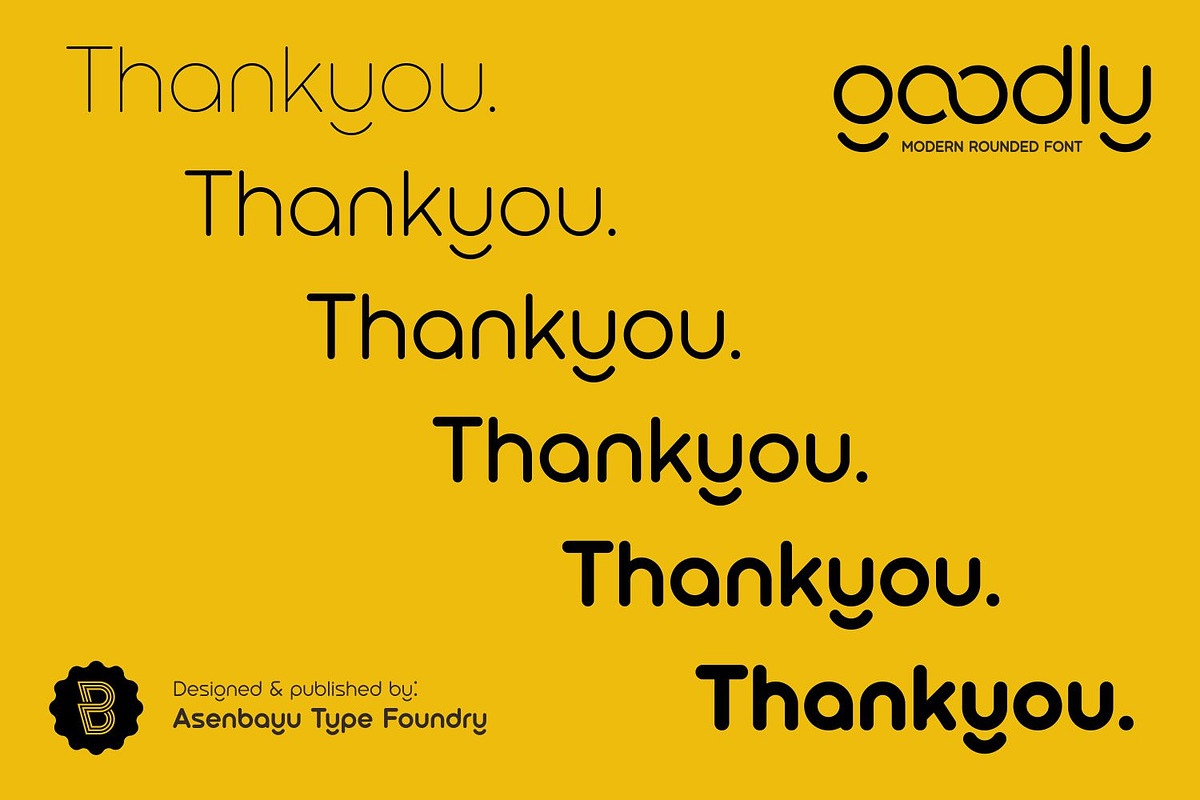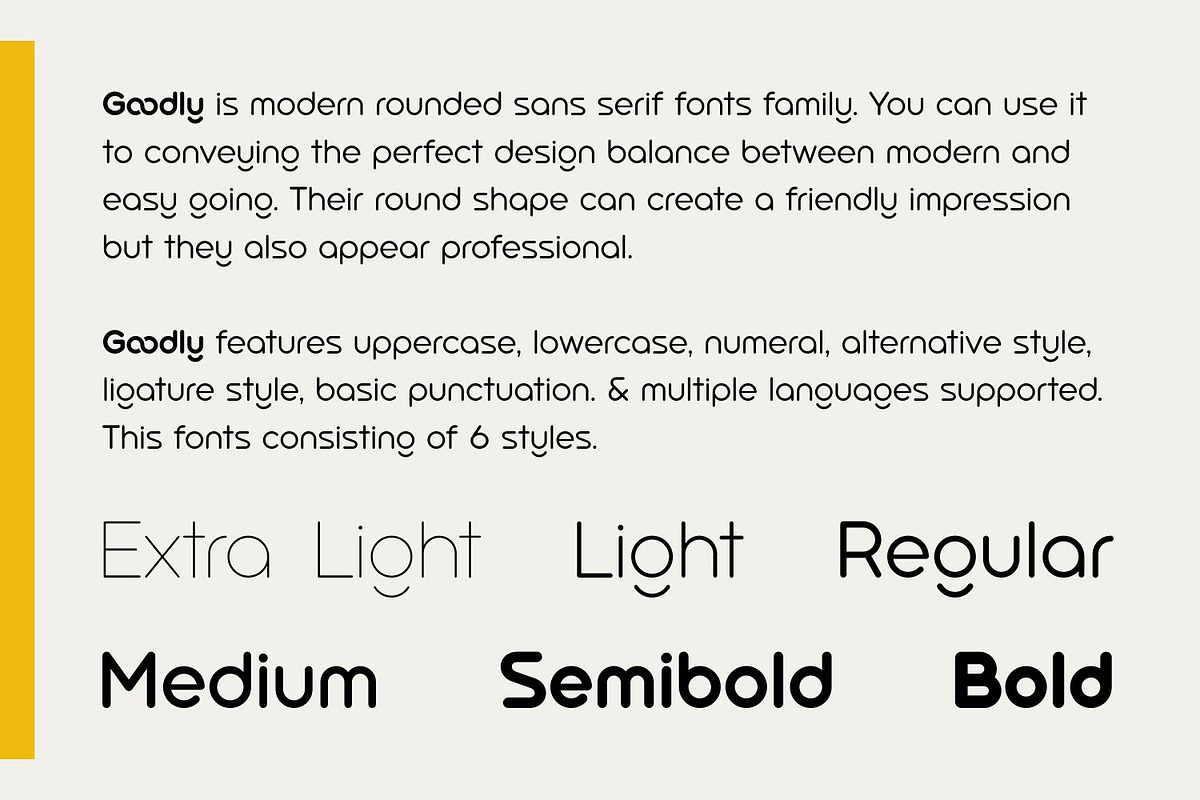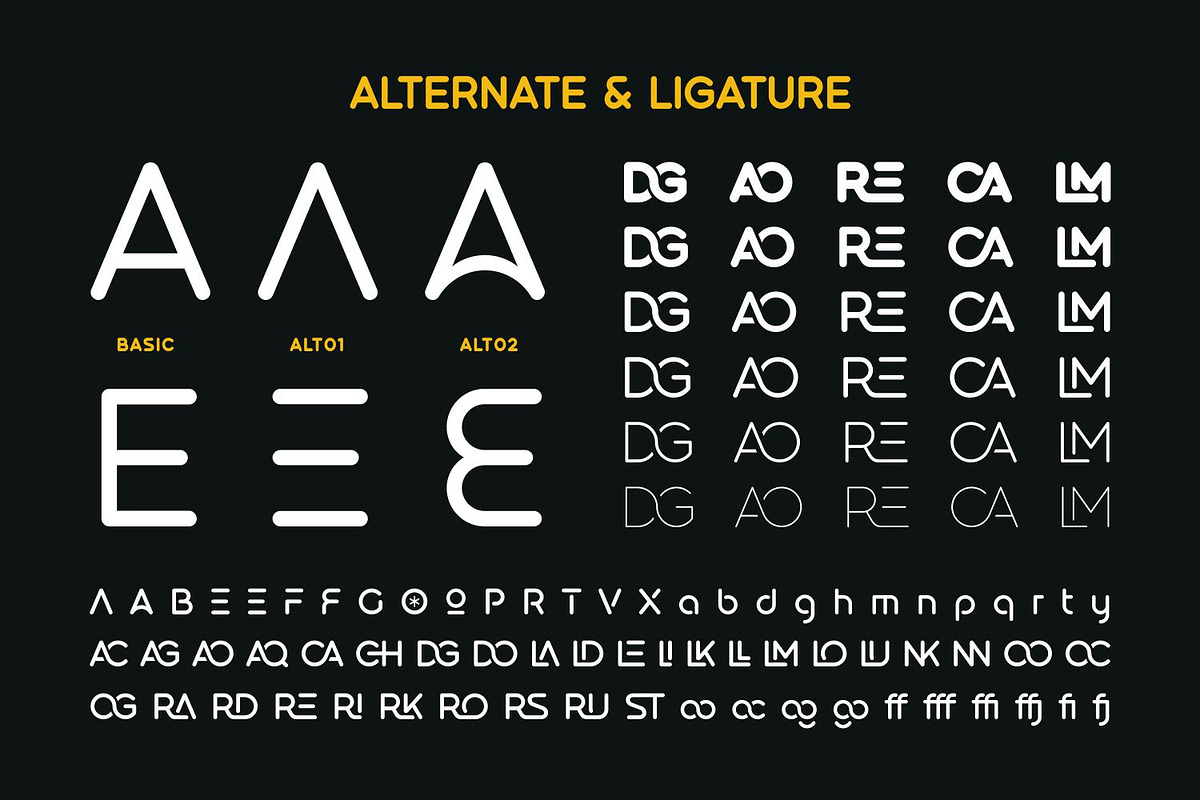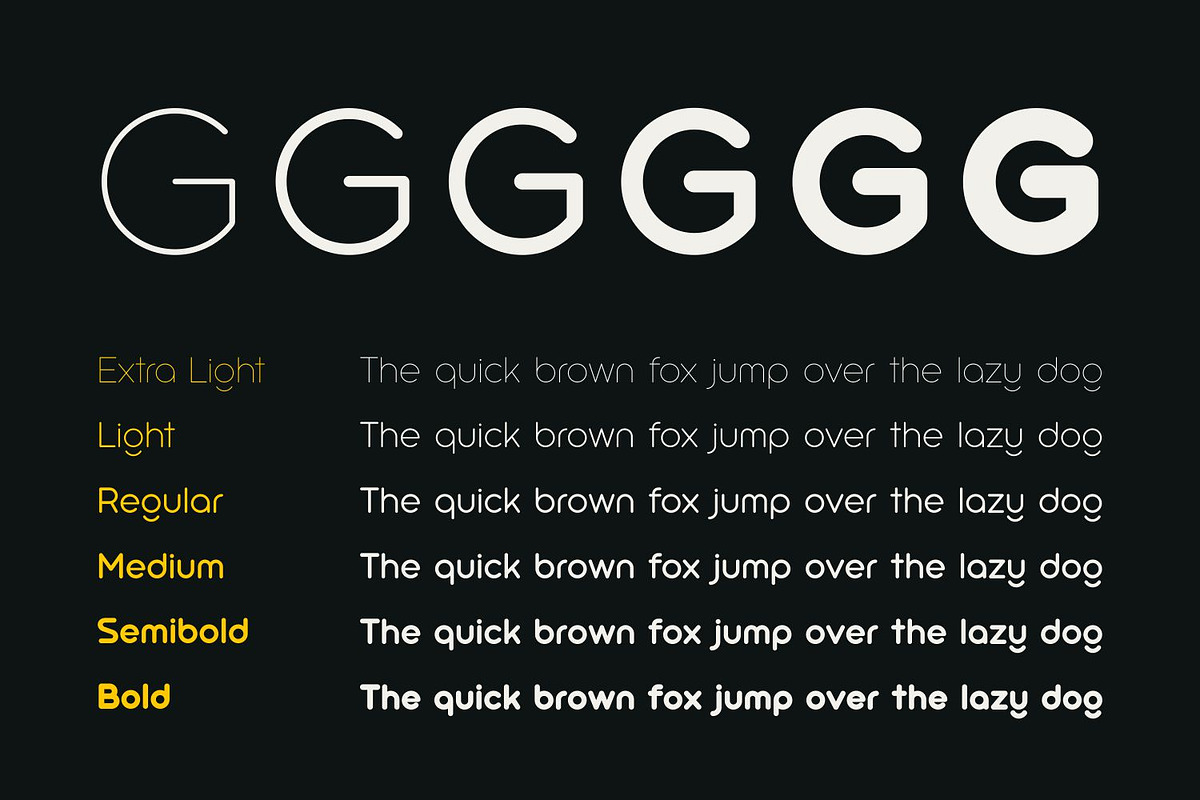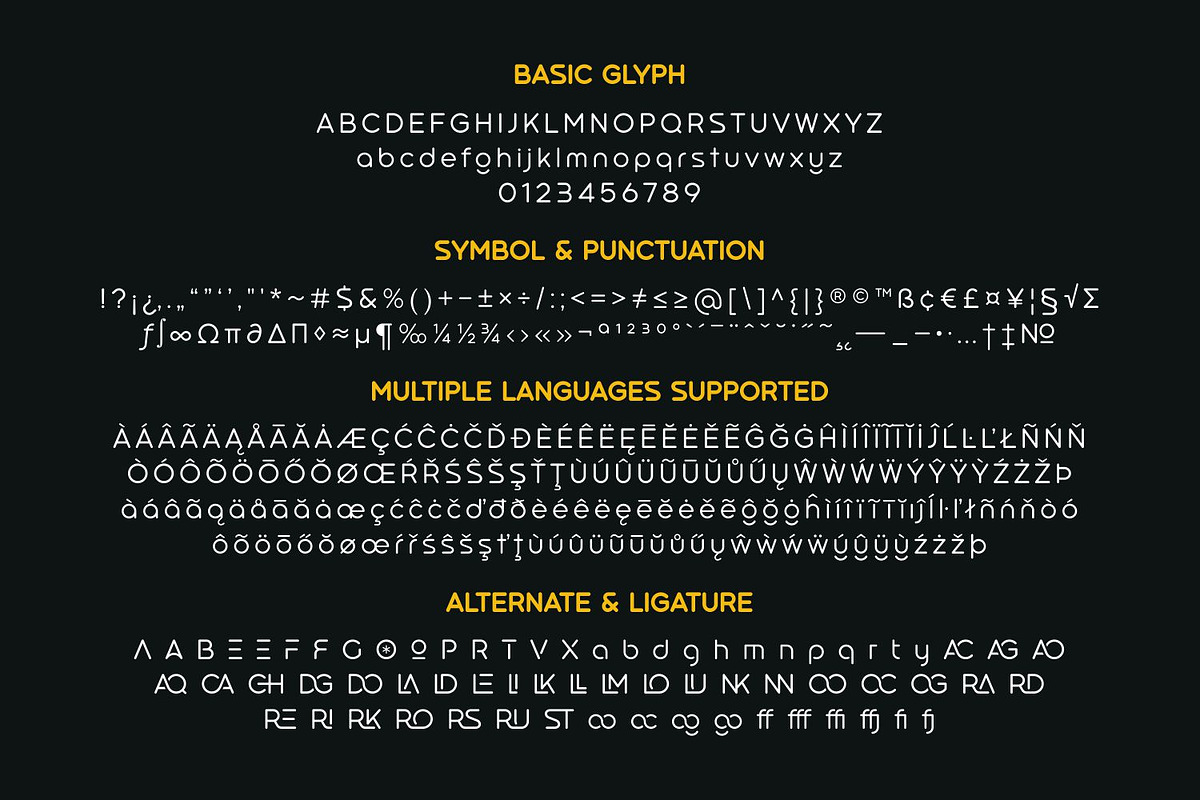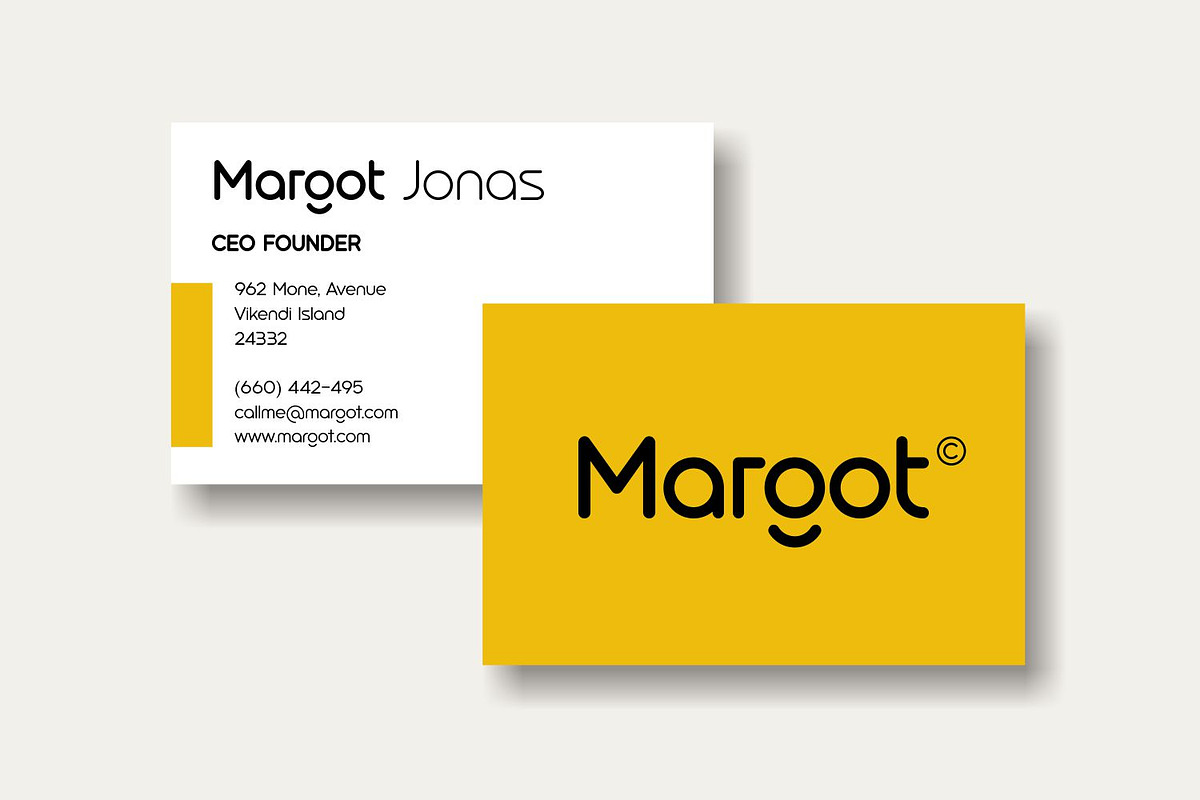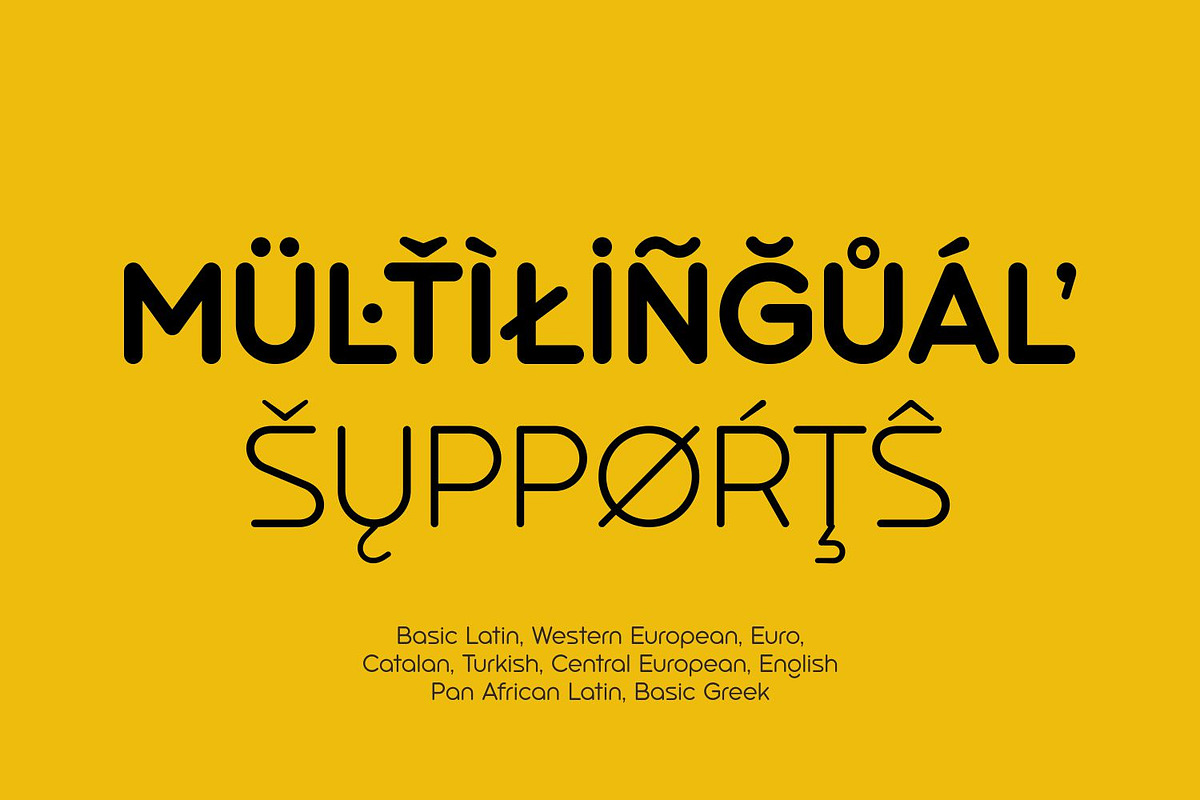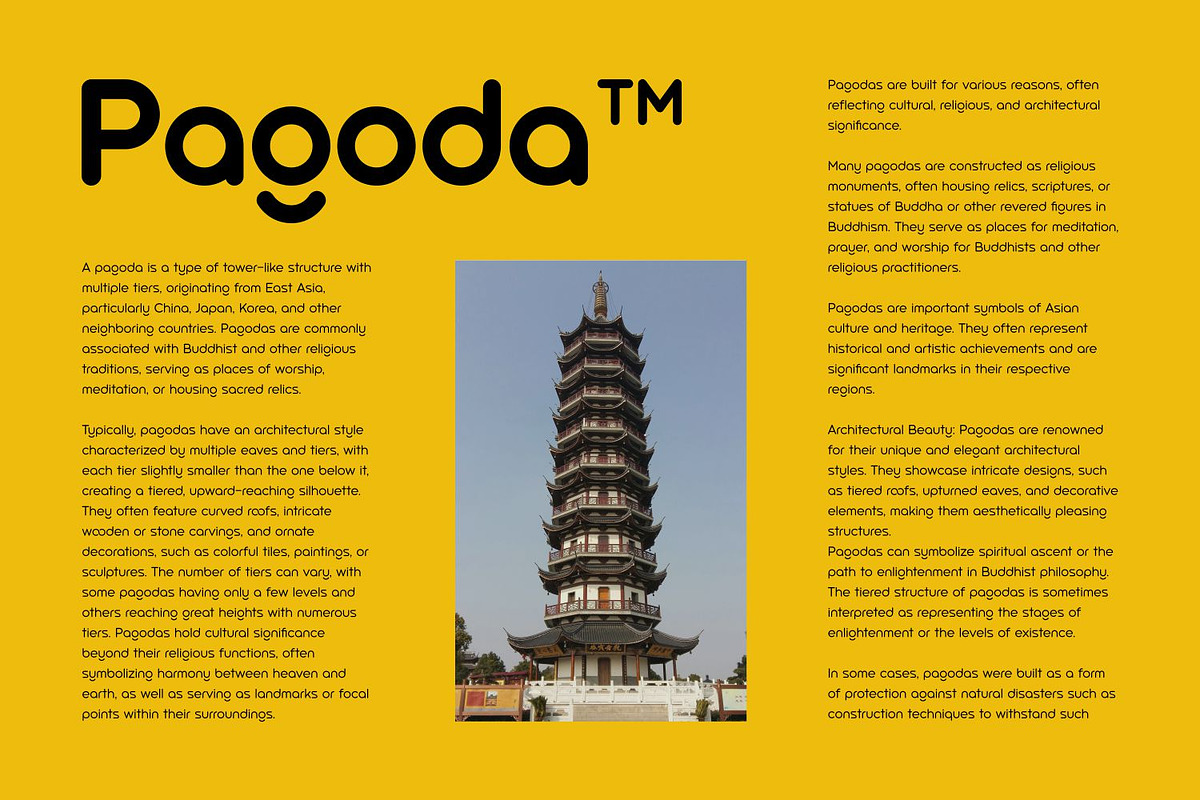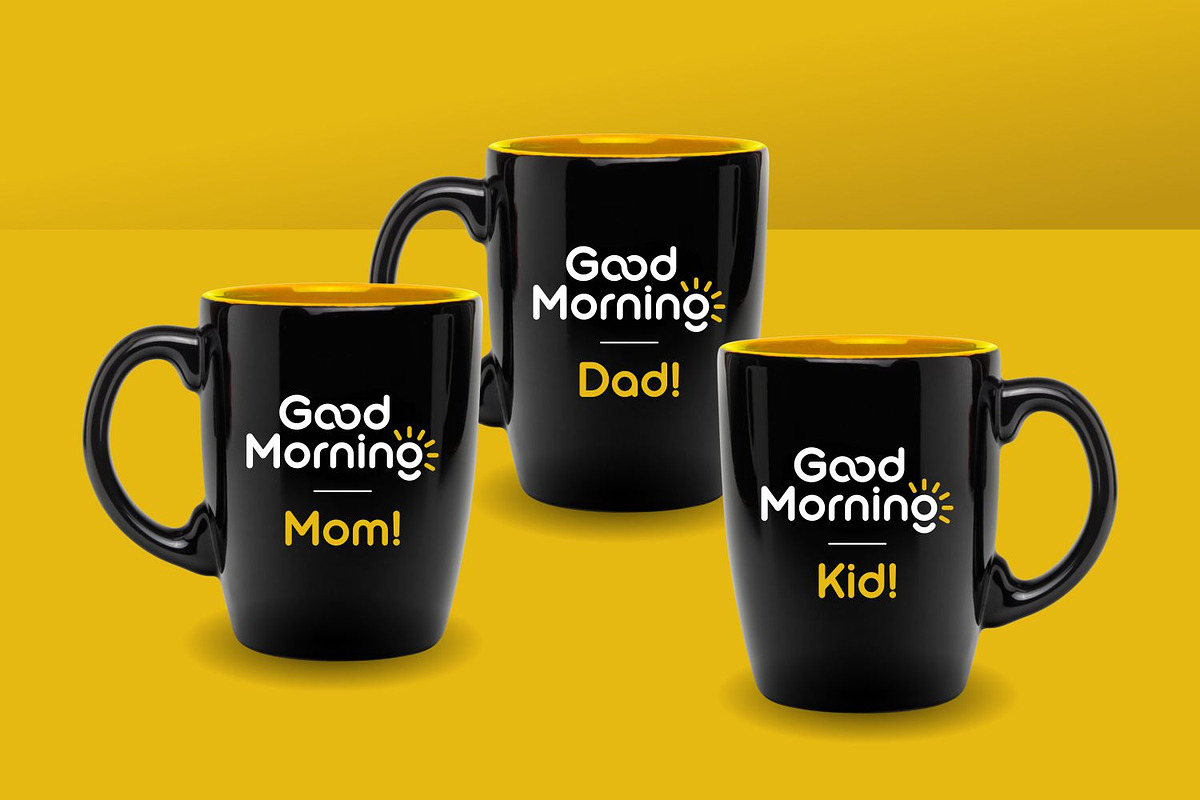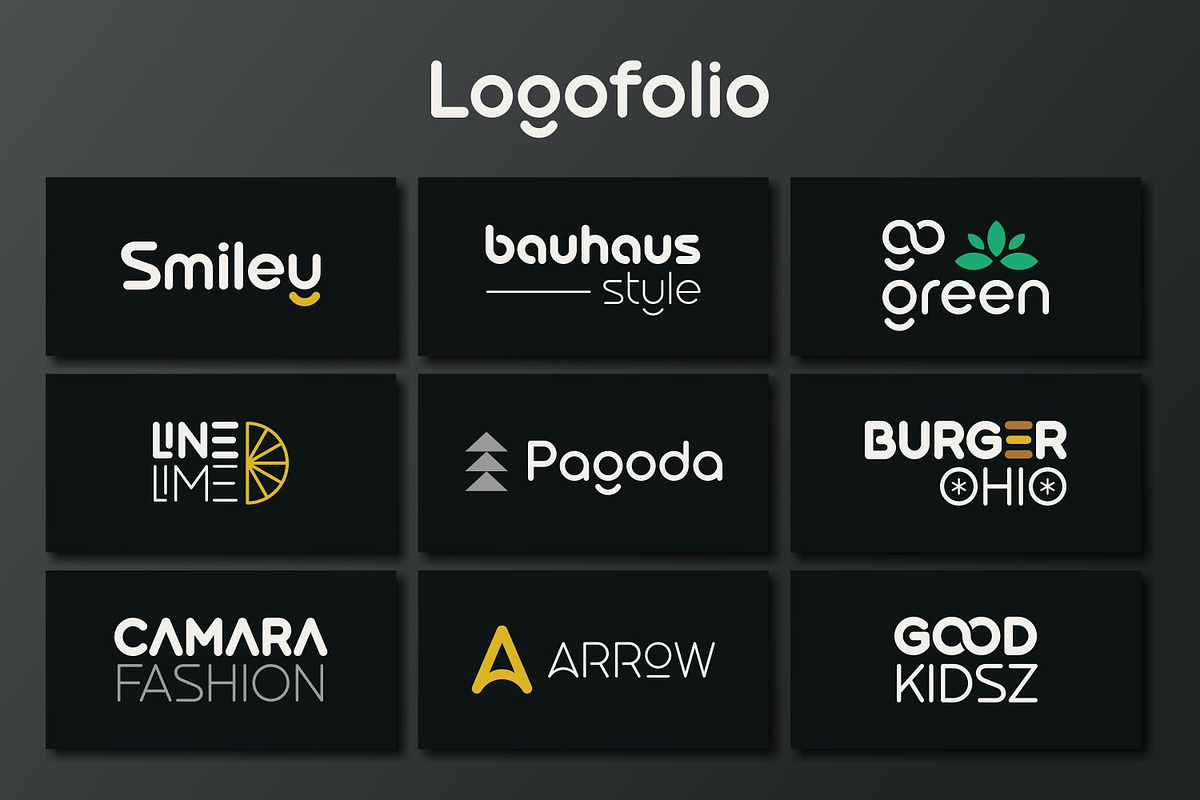
Goodly Fonts Family
Goodly is modern rounded sans serif fonts family consisting of 6 weight. You can use it to conveying the perfect design balance between modern and easy going. Their round shape can create a friendly impression but they also appear professional. This font is suitable for trendy packaging label designs, unique desired logos and branding, poster designs, fashion and many more.
Goodly font features:
- 6 Weight
- Standard glyph
- Stylistic alternates & ligatures
- Symbol & punctuation
- Multiple languages supported.